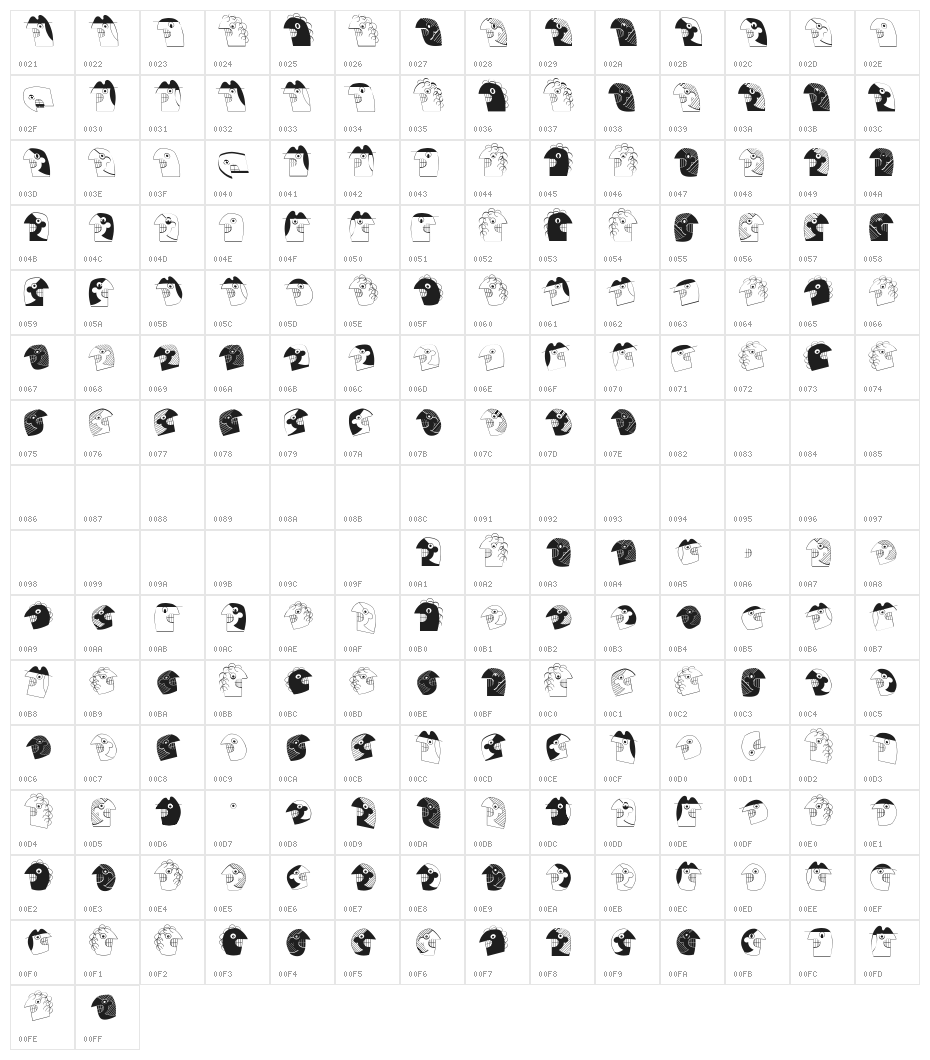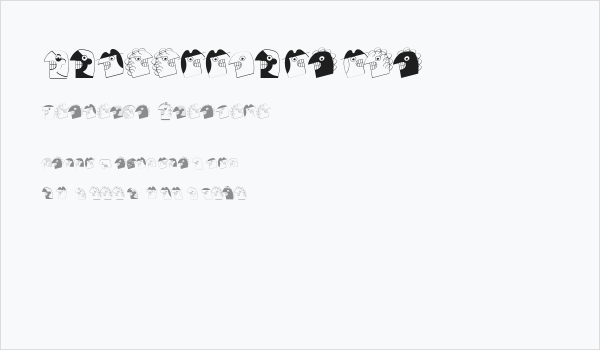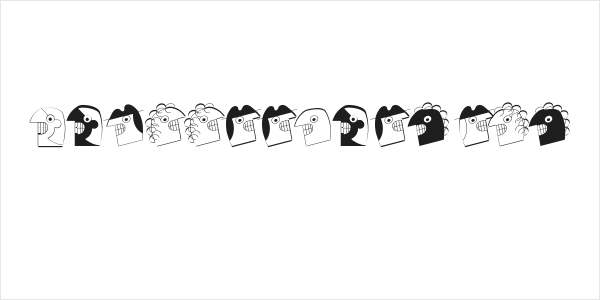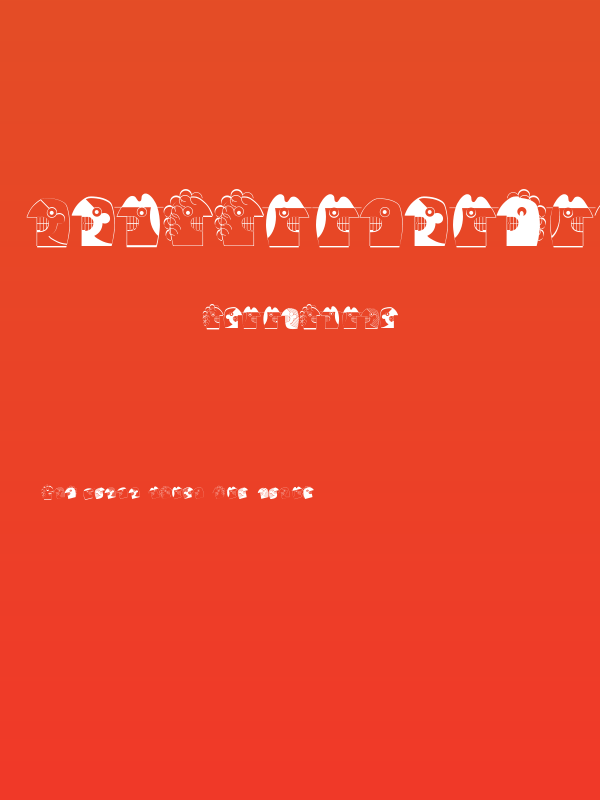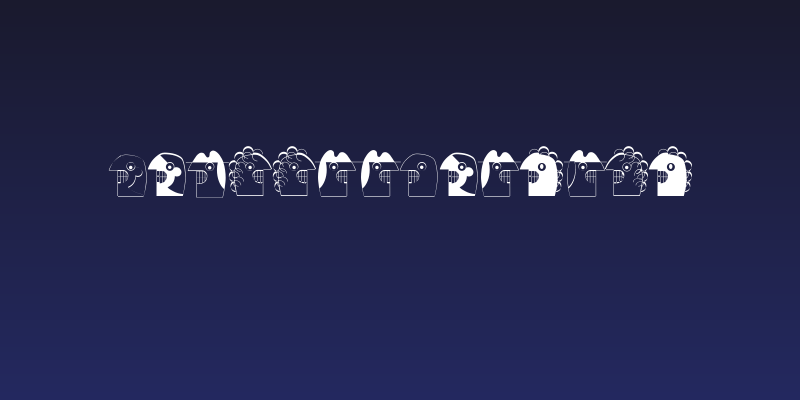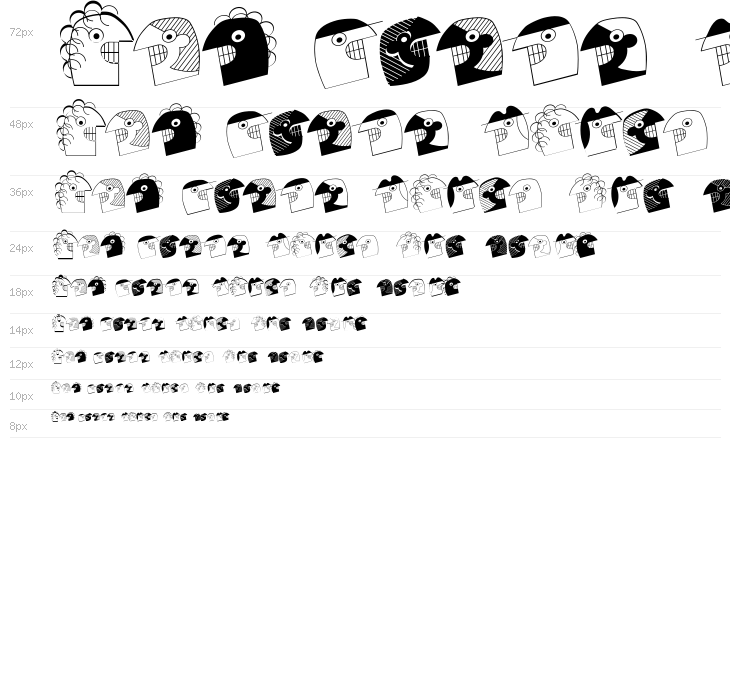
MKartoonKoepfe Font
MKartoonKoepfe Description
A playful and highly decorative typeface where each character is represented by a stylized cartoon head, featuring exaggerated facial features, hair, and patterns. The glyphs alternate between filled and outlined styles, with unique visual motifs for each letter and symbol.
Overall StyleDecorative, Playful, Whimsical
Use CaseLogos, Headlines, Posters, ChildrenÒ€ℒs content
Proposed ProjectsChildrenÒ€ℒs books, posters, playful branding, party invitations, comics, educational materials.